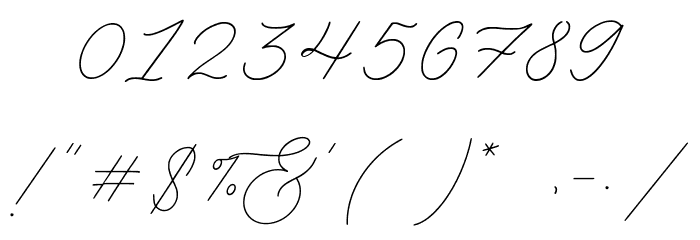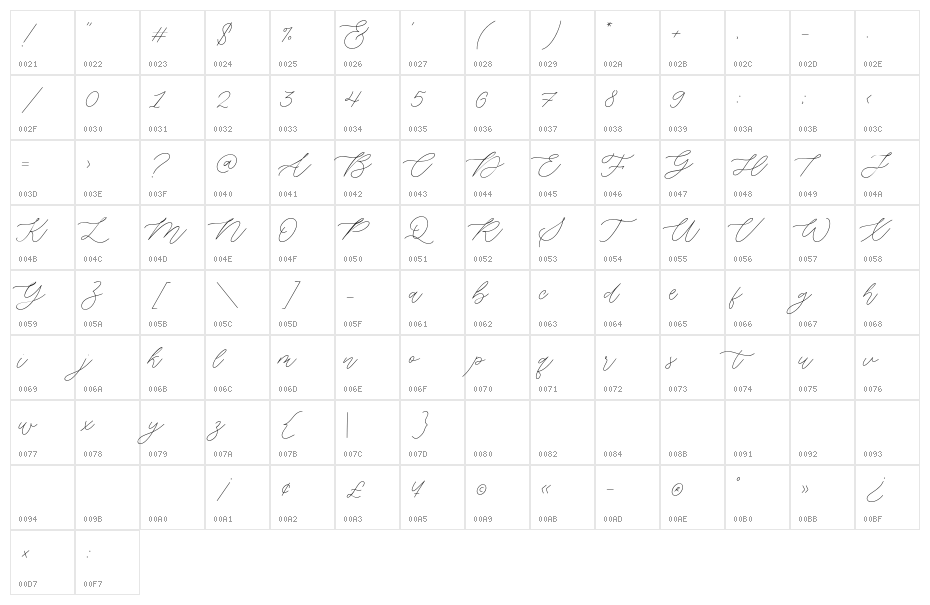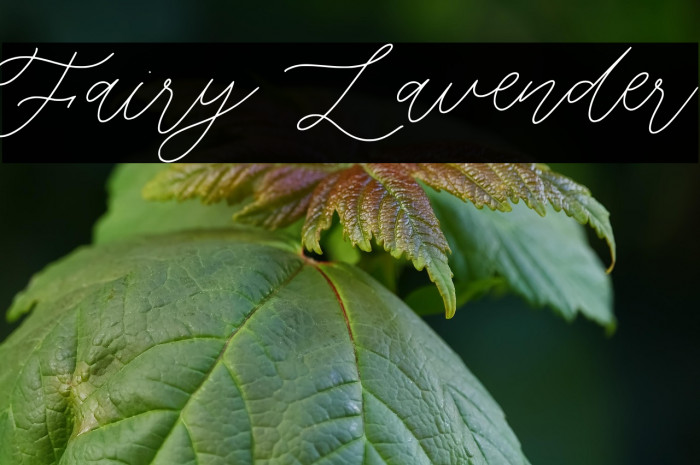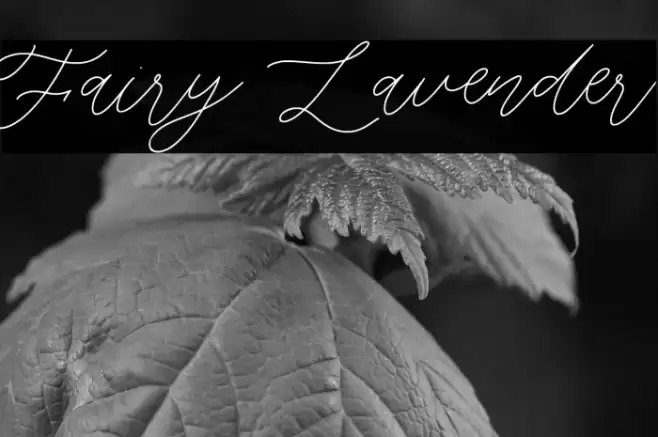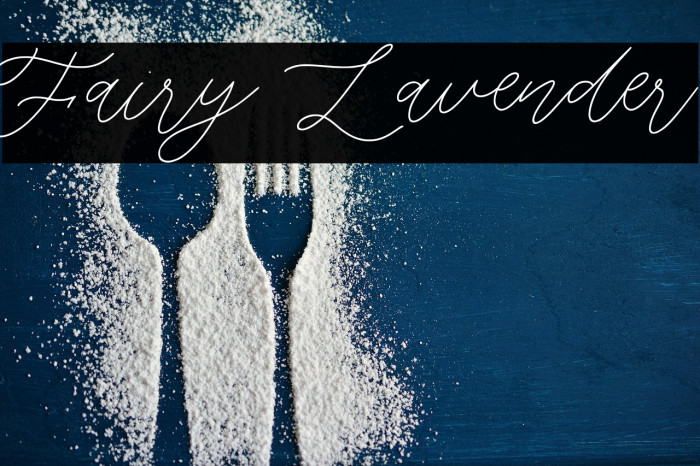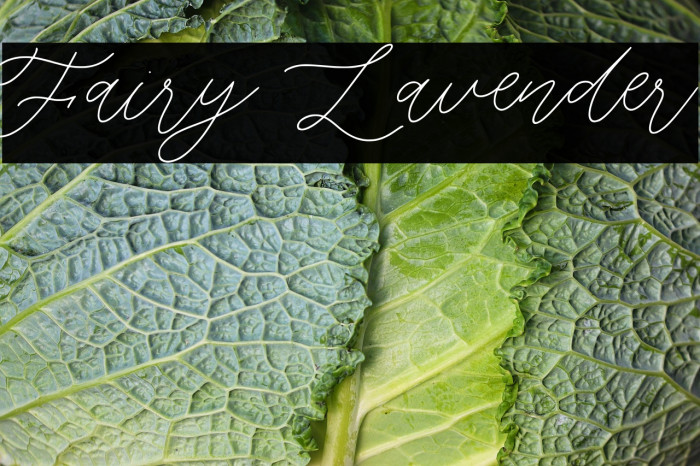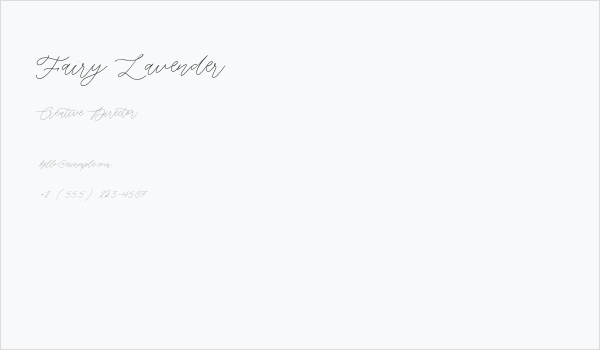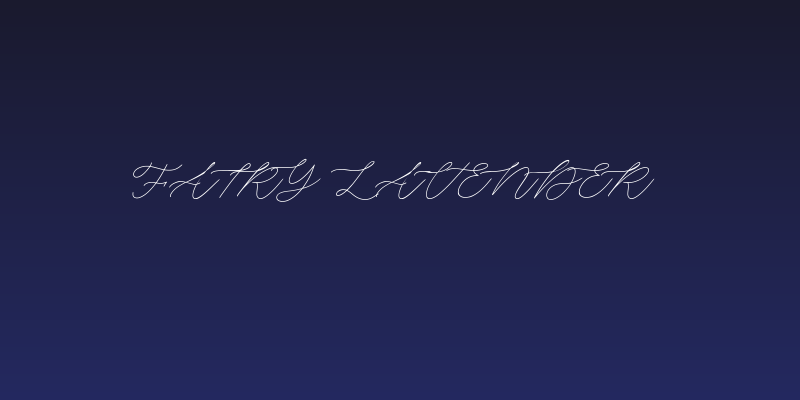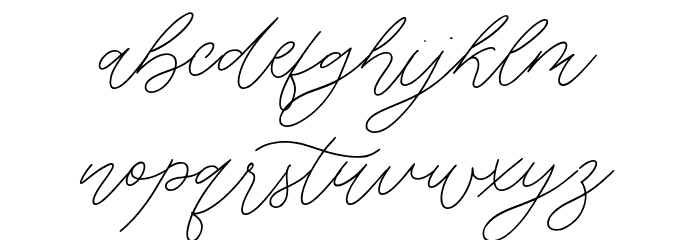
Fairy Lavender Font
Fairy Lavender Description
This elegant script font features a flowing, cursive style with delicate, swirling lines that evoke a sense of grace and sophistication. The characters are interconnected, creating a seamless and fluid appearance. The uppercase letters are ornate and slightly larger, while the lowercase letters maintain a consistent, flowing form. The numerals and special characters are designed with the same attention to detail, ensuring a cohesive look across all elements. This font is perfect for adding a touch of elegance and charm to any project, with its refined and artistic design.
| Proposed Projects | Ideal for wedding invitations, elegant branding, greeting cards, and decorative projects. |